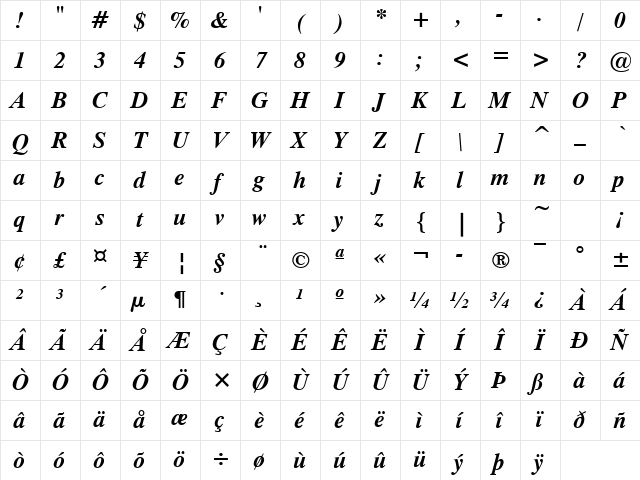
Tiempo Bold Italic
Tiempo Family
Complete Tiempo Bold Italic glyph index. Displaying only characters natively supported by Tiempo Bold Italic font.
Design Context for Tiempo
Tiempo is a composed and adaptable typeface that performs quietly and consistently across a wide range of design contexts. The slanted form adds forward momentum and visual energy. Its bold stroke weight gives it real presence on the page.
Pro Tip: Use Tiempo for emphasis, pull quotes, and subheadings where its slanted energy can add rhythm to the layout.